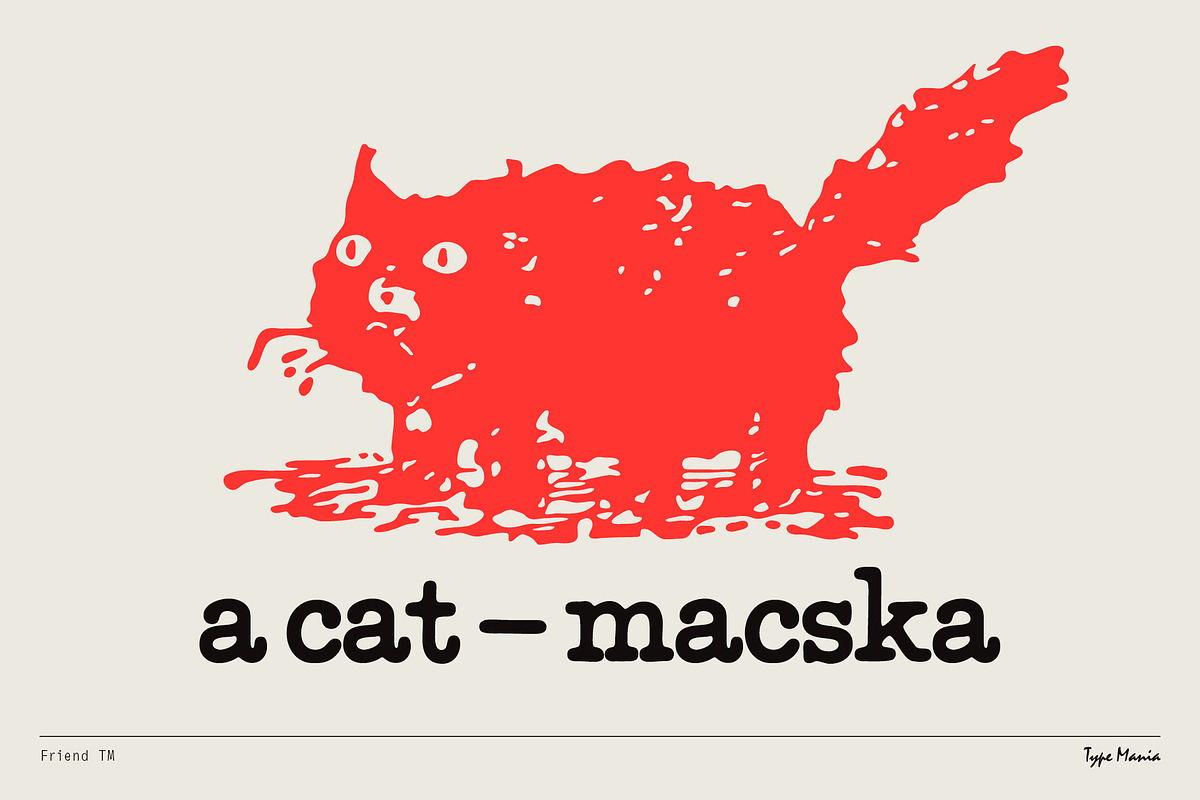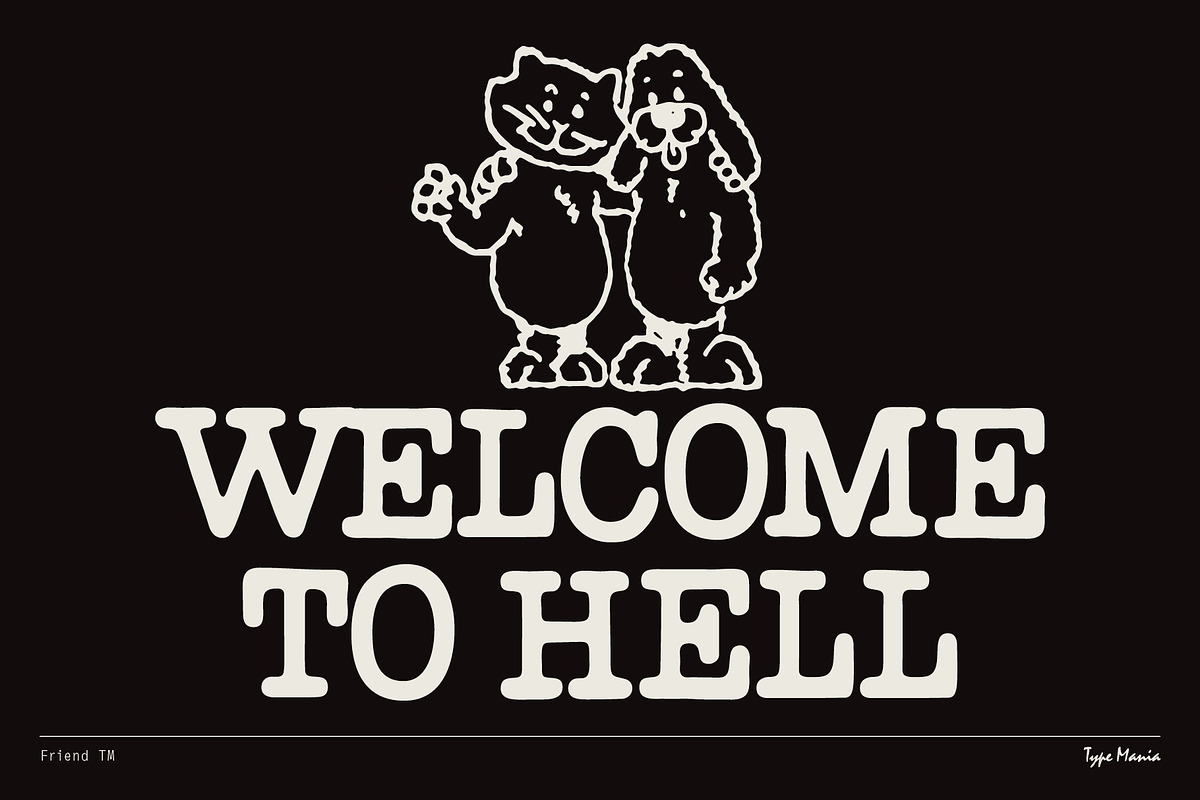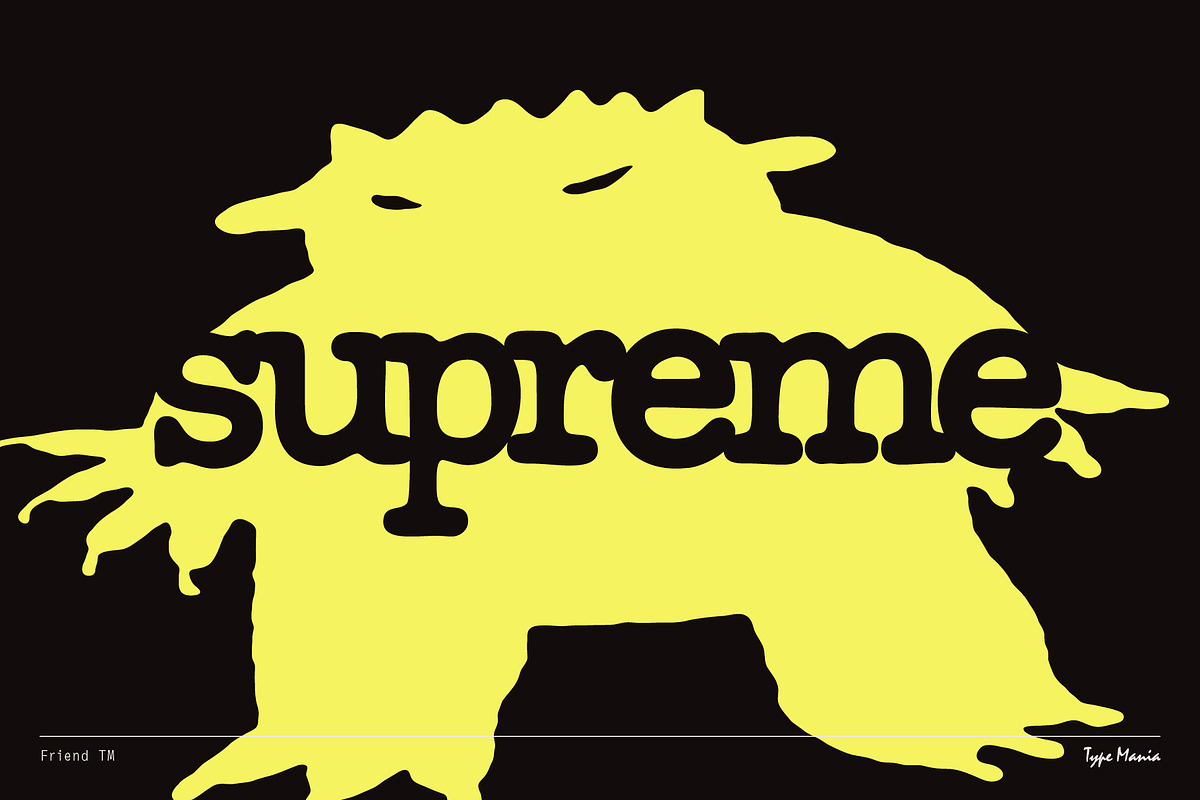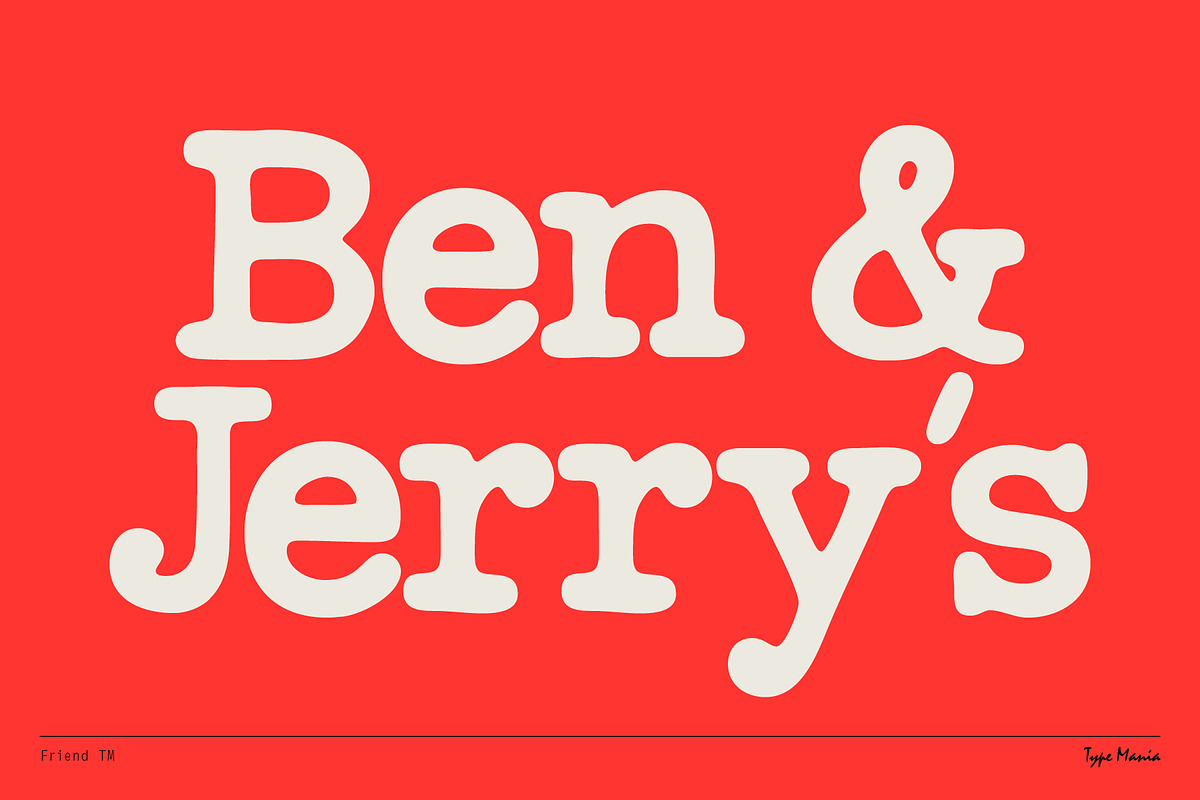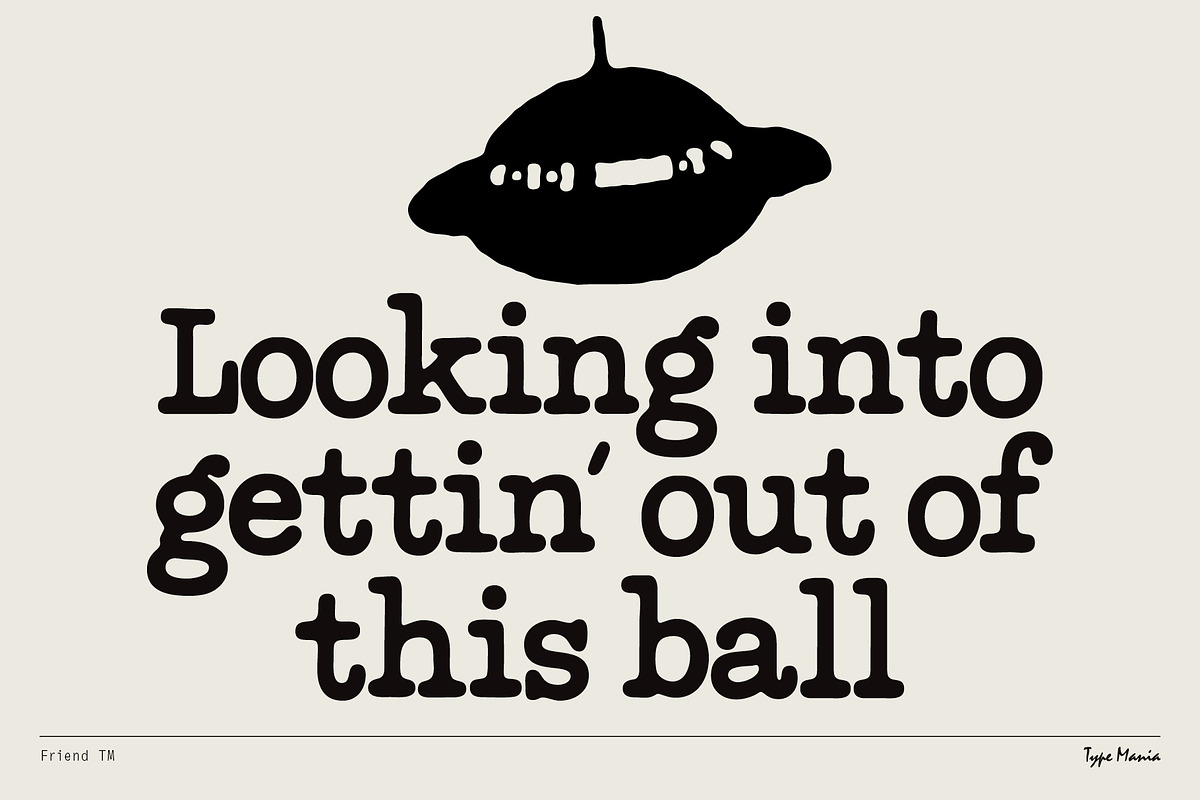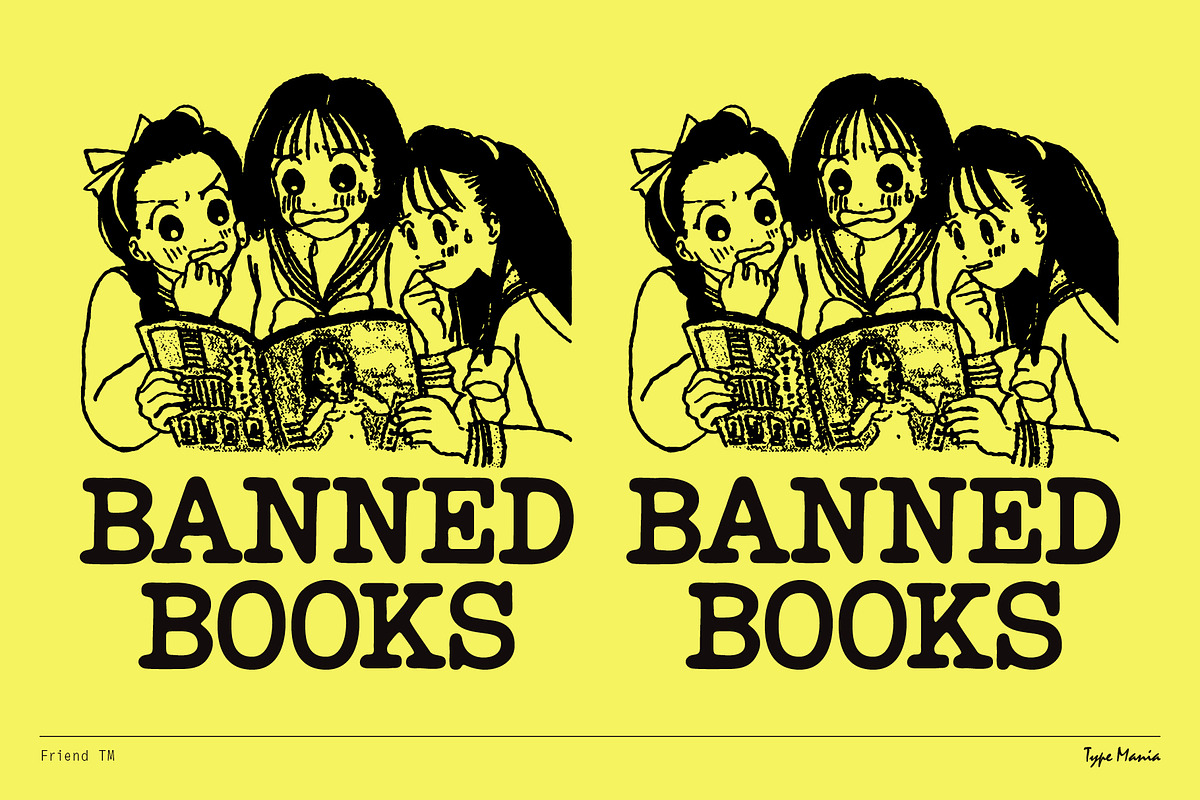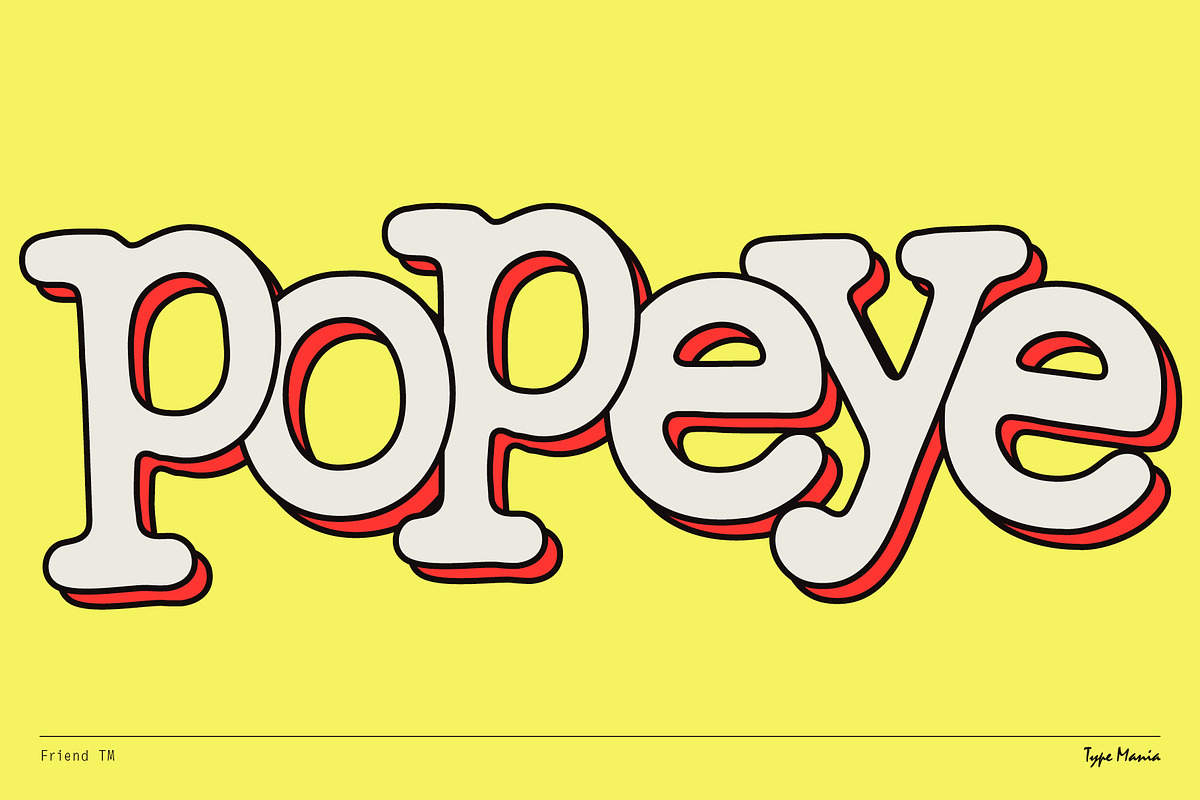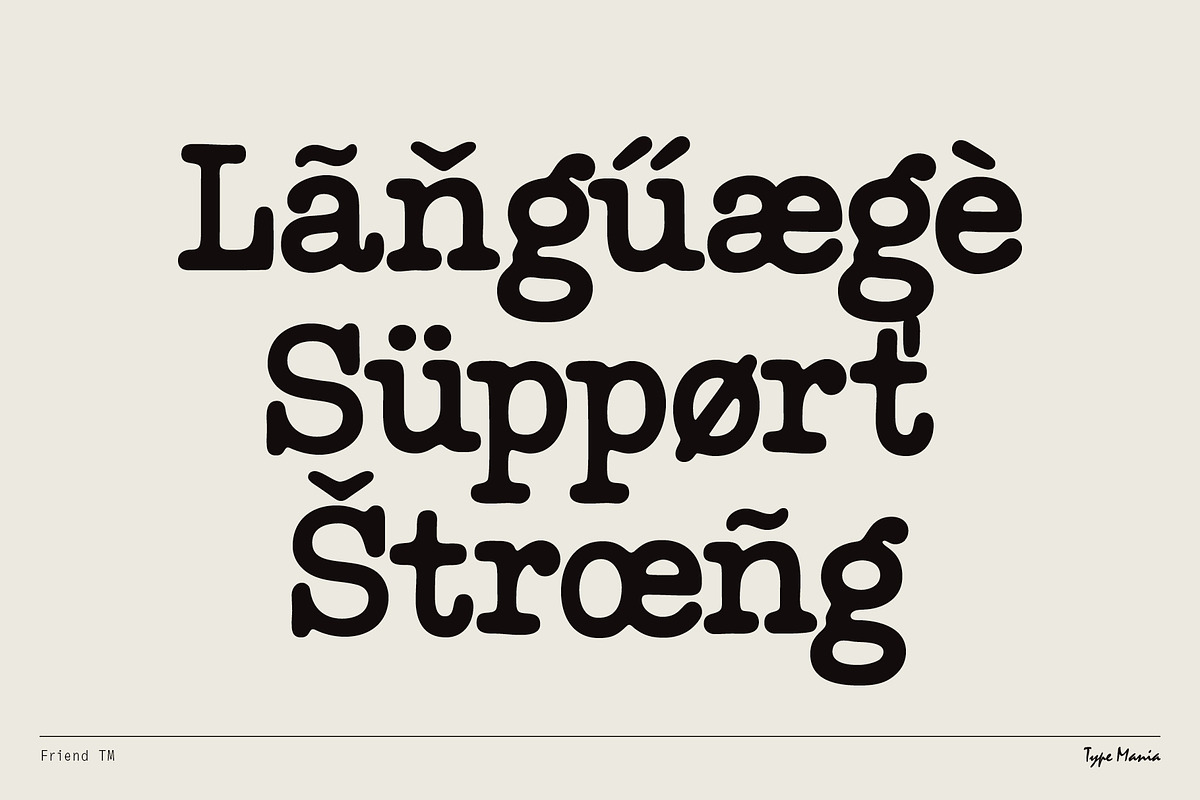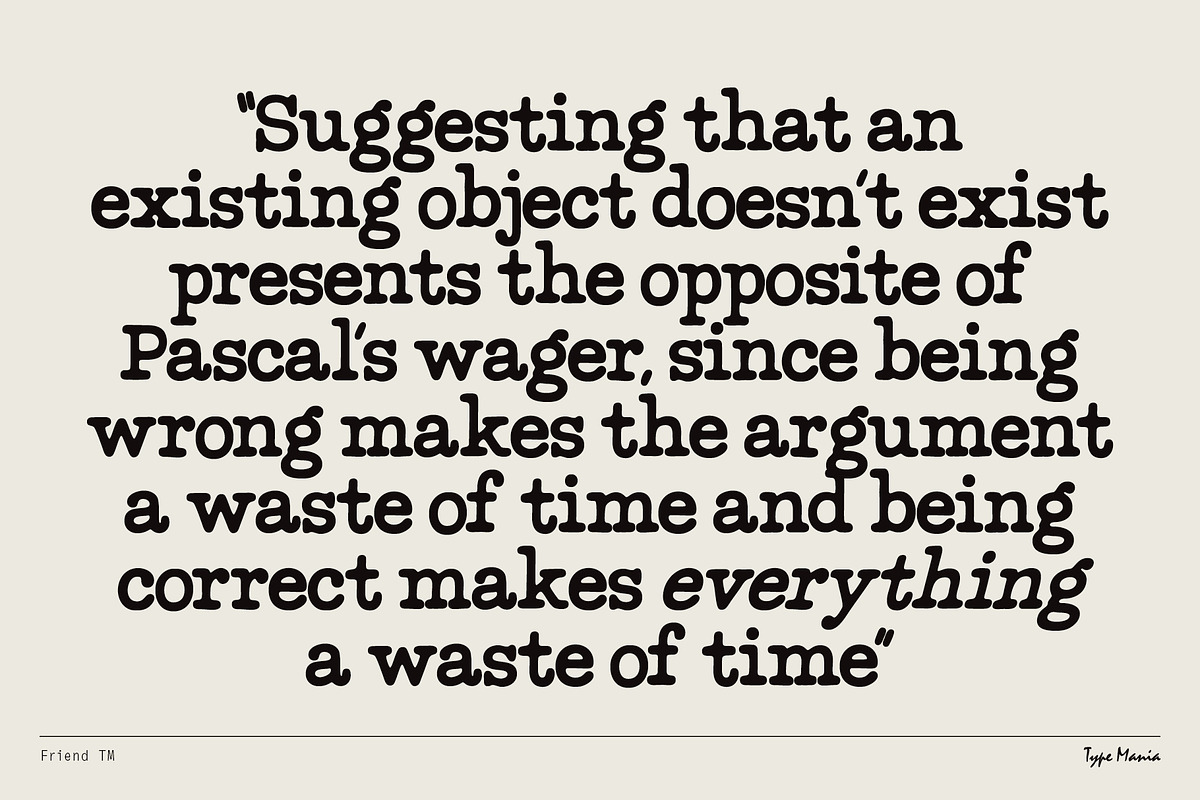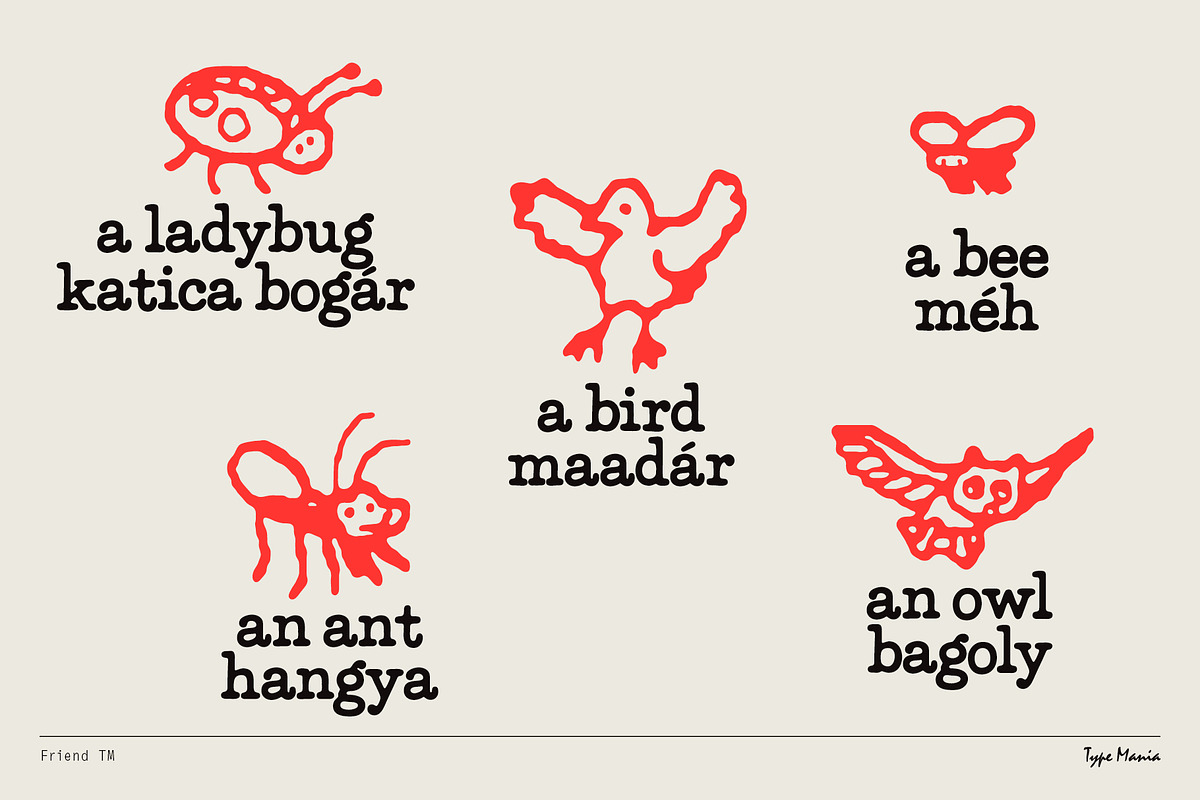
Friend TM – Chummy Slab
Friend TM, the most chill slab from Type Mania. Grounded and readable, it's good for a multitude of uses: posters, flyers, packaging, paranormal newsletters, branding, books, mags… what have you.